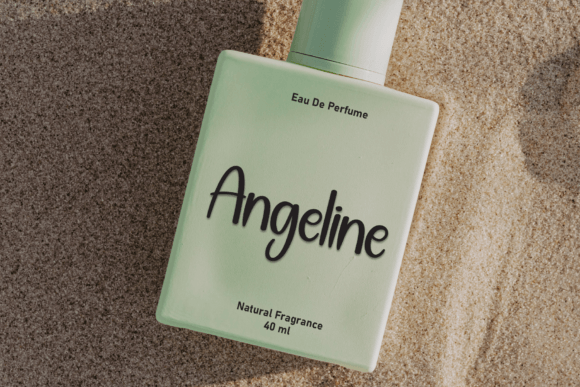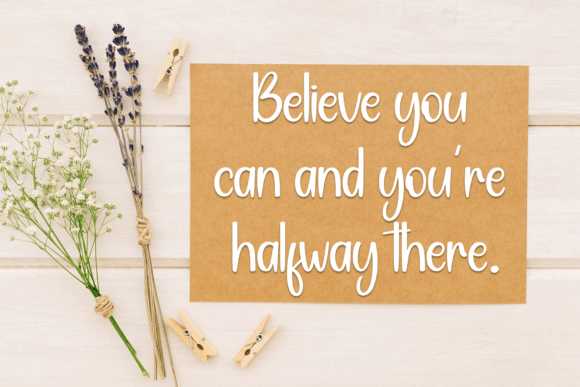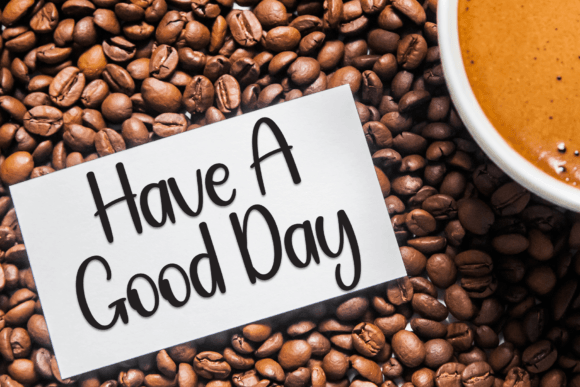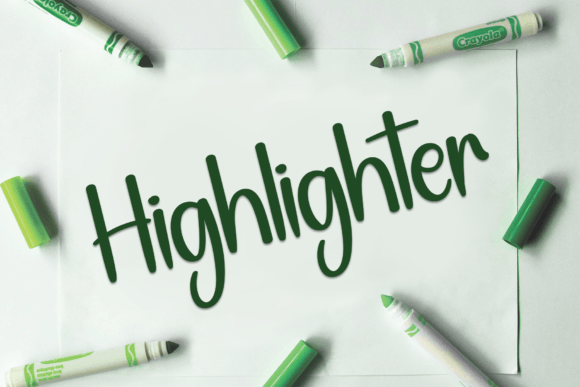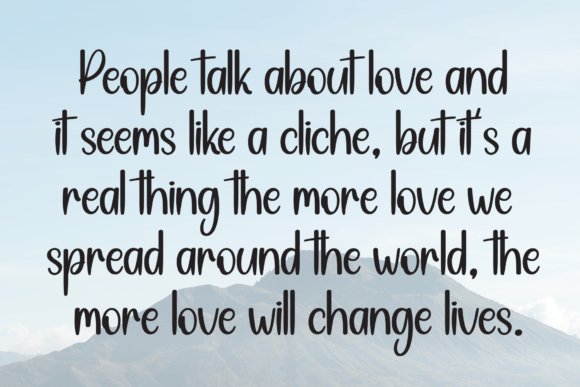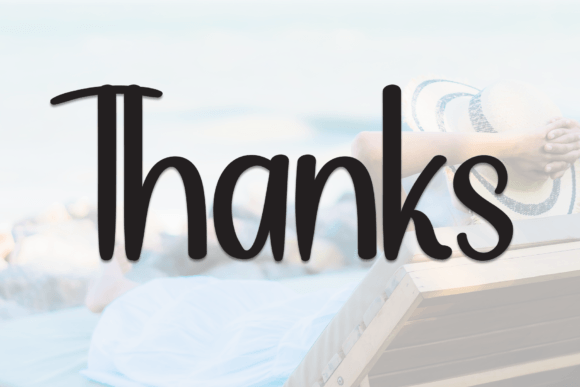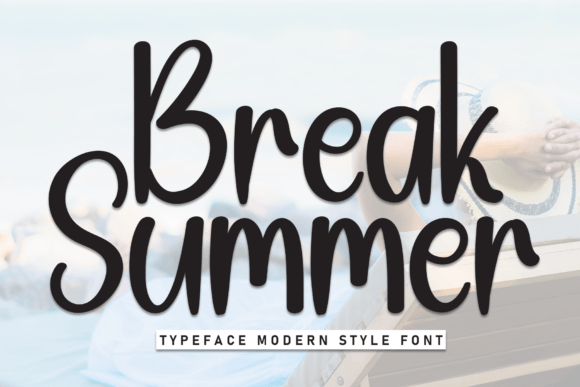
Introducing Break Summer Font: The Perfect Blend of Whimsy and Elegance
Are you looking for a font that can add a touch of magic to your designs? Look no further than the Break Summer font, a beautiful handwritten display font that is sure to enchant your audience. With its sprightly and fun-filled character, this font is perfect for wedding invitations, greeting cards, and any design that craves a splash of playful elegance.
The Charm of Break Summer Font
The Break Summer font is a fanciful and charming font that exudes a sense of whimsy and wonder. Its handwritten style gives it a personal and intimate feel, making every inscription a magical experience. Whether you’re designing a wedding invitation, a greeting card, or a social media post, this font is sure to add a touch of warmth and personality to your design.
The Break Summer font is perfect for designers and crafters who want to add a touch of elegance and sophistication to their designs. With its unique and playful style, this font is sure to make your designs stand out from the crowd. Whether you’re creating a beautiful wedding invitation, a heartfelt greeting card, or a stylish social media post, this font is sure to impress.
Key Features of Break Summer Font
- Handwritten style: The Break Summer font features a beautiful handwritten style that gives it a personal and intimate feel.
- Playful and elegant: This font is perfect for designs that require a touch of whimsy and elegance.
- Perfect for wedding invitations and greeting cards: The Break Summer font is ideal for wedding invitations, greeting cards, and any design that requires a touch of sophistication and elegance.
- Unique and stylish: This font is sure to make your designs stand out from the crowd with its unique and stylish style.
- Use it for headings and titles: The Break Summer font is perfect for headings and titles, where you want to make a bold and stylish statement.
- Pair it with other fonts: You can pair the Break Summer font with other fonts to create a unique and stylish look.
- Experiment with different colors and textures: The Break Summer font looks great in a variety of colors and textures, so don’t be afraid to experiment and find the perfect combination for your design.
Benefits of Using Break Summer Font
There are many benefits to using the Break Summer font in your designs. Here are just a few:
- Adds a touch of whimsy and elegance: The Break Summer font adds a touch of whimsy and elegance to your designs, making them more engaging and memorable.
- Perfect for a variety of design projects: This font is perfect for a variety of design projects, including wedding invitations, greeting cards, social media posts, and more.
- Unique and stylish: This font is sure to make your designs stand out from the crowd with its unique and stylish style.